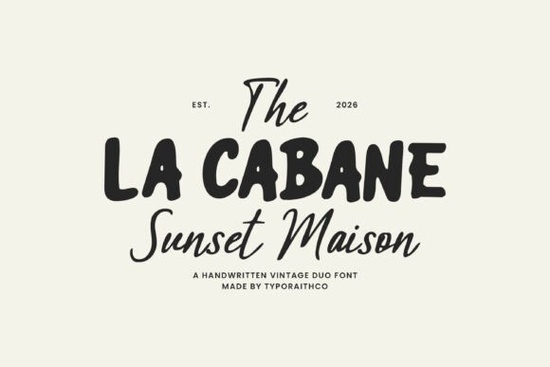
If you're looking for a font that captures the cozy charm of a countryside retreat with a touch of retro flair, La Cabane Font might be exactly what your next project needs. This handcrafted duo featuring a bold vintage sans and a flowing handwritten script was designed to evoke warmth, nostalgia, and personality without feeling dated.
What makes La Cabane Sunset Maison stand out is how well the two styles work together. The bold display letters give your headlines weight and presence, while the script adds softness and human touch. Whether you’re designing a café menu, wedding invitation, or boutique product label, this pairing creates visual interest through contrast rather than clutter.
When should you use La Cabane Font?
This font duo shines in projects that benefit from a handmade, artisanal feel. Think small-batch coffee packaging, rustic bakery branding, or even fashion tags for indie clothing lines. It’s also surprisingly versatile for digital use social media graphics, blog headers, or email banners all gain character when set in La Cabane.
Because it leans into vintage aesthetics without being overly ornate, it avoids the “costume” trap that some retro fonts fall into. Instead, it feels grounded and authentic like something you’d find on a weathered sign outside a family-run patisserie or a hand-stamped gift tag at a local market.
How does it compare to other script fonts?
If you’ve browsed Creative Fabrica’s script collection, you’ve likely come across options like Fall Diary, which offers a more delicate, journal-like handwriting style, or Summer Notes, known for its breezy, casual strokes. La Cabane takes a different path: it’s bolder, more structured, and intentionally paired with a complementary sans-serif for full design flexibility.
Other fonts like Magic Sketch lean into playful sketchiness, while Coastal Angels brings airy elegance suited for beach weddings or spa branding. La Cabane, by contrast, is rooted in earthy, nostalgic warmth ideal if your brand story involves heritage, craftsmanship, or slow living.
Practical tips for using the duo effectively
Since La Cabane comes as two separate fonts (one bold sans, one script), here’s how to get the most out of them:
- Use the bold sans for headlines or logos where you need immediate impact think storefront signage or product packaging.
- Reserve the script for accents: short phrases, names, or decorative elements. Avoid setting long paragraphs in the script; it’s meant to charm, not to read at length.
- Pair with neutral, earthy colors like terracotta, olive green, cream, or faded denim blue to enhance the vintage mood.
- Add subtle textures paper grain, light ink bleed, or halftone patterns to reinforce the handcrafted vibe without overwhelming the typography.
One common mistake? Overusing both fonts at once. Let one take the lead. For example, a café poster might use the bold sans for “OPEN DAILY” and the script just for the owner’s name or a tagline like “baked with love.”
Who is this font really for?
La Cabane works best for creators who value storytelling through design. That includes:
- Small business owners crafting brand identities for bakeries, florists, or coffee roasters
- Print-on-demand sellers creating mugs, tote bags, or greeting cards with a nostalgic twist
- Graphic designers working on editorial layouts, event stationery, or boutique packaging
- Hobbyists making personalized gifts or home decor with a handmade aesthetic
It’s not ideal for corporate reports or minimalist tech brands but if your project calls for heart, history, and a little bit of whimsy, it’s a thoughtful choice.
Before you commit, consider whether your audience connects with vintage-inspired visuals. If your customers appreciate authenticity over sleek modernity, La Cabane can help you speak their visual language.
Ready to try it?
If you’re exploring similar options, don’t miss the dedicated page for La Cabane on Creative Fabrica it includes usage examples, licensing details, and pairing suggestions.
Before downloading, ask yourself:
- Does my project benefit from a warm, nostalgic tone?
- Do I have a clear role for both the bold and script styles or will I only use one?
- Is my color palette and imagery aligned with a handcrafted, retro-modern aesthetic?
If you answered “yes” to most of these, La Cabane Font could become a go-to in your creative toolkit not because it’s trendy, but because it helps you say something genuine.